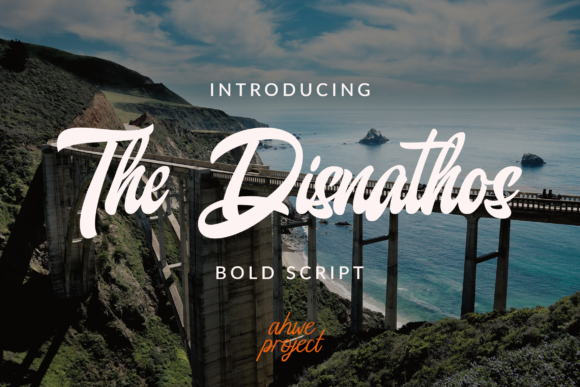
Step into a world where handwritten elegance meets timeless beauty with The Disnathos Font, a captivating script font family that exudes vintage charm. This remarkable creation by ahweproject is not just a font; it's a journey through time, a nostalgic embrace of the past that brings a touch of history to your digital designs.
Immerse yourself in the intricate details and flowing curves of The Disnathos, where each letter dances with grace and character. Its bold strokes evoke a sense of authenticity, reminiscent of handwritten letters from a bygone era. Let your words flow effortlessly, carrying the weight of history and the allure of the past.
With The Disnathos, you unlock endless possibilities for your creative projects. From elegant wedding invitations to heartfelt personal letters, from vintage-inspired logos to captivating social media posts, this font family effortlessly elevates your designs to new heights of sophistication. Its versatility knows no bounds, adapting seamlessly to a myriad of styles and themes, adding a touch of timeless charm to every project you undertake.
Experience the joy of crafting designs that resonate with your audience, designs that evoke emotions and leave a lasting impression. The Disnathos Font becomes your trusted companion, helping you create heartfelt messages, meaningful branding, and unforgettable visual experiences.
Embrace the nostalgic elegance of The Disnathos Font and embark on a creative journey where the past meets the present, where handwritten artistry intertwines with digital innovation. Let your designs speak volumes, carrying the legacy of the past into the modern world.